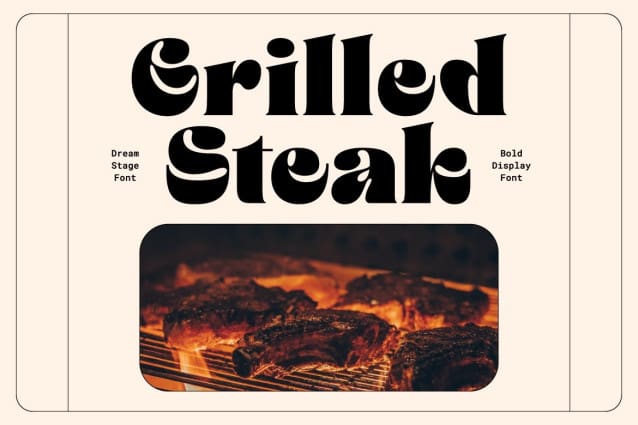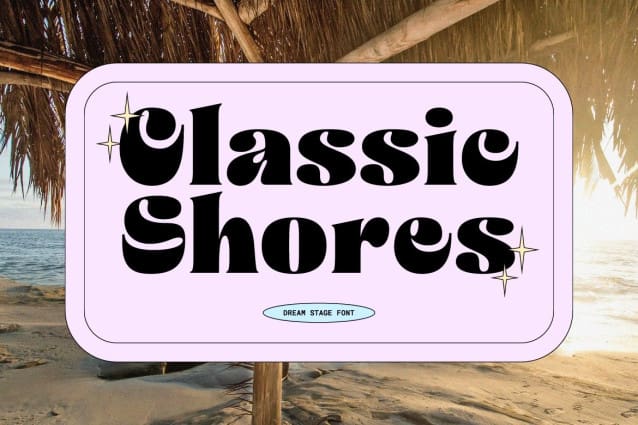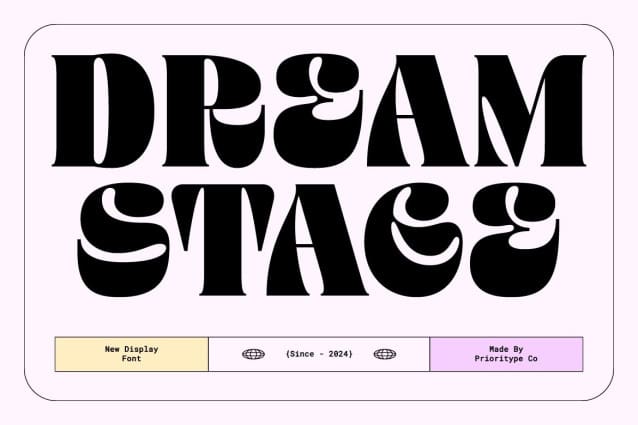
Dream Stage Font
Dream Stage Font – Bold Display Font. A bold display font that captivates with its striking and authentic characters. Each letter exudes strength and authenticity, making it an impressive choice for posters, logos, and branding projects. Dream Stage stands out, commanding attention and leaving a lasting impression. Elevate your designs with this powerful and versatile font that embodies confidence and style.